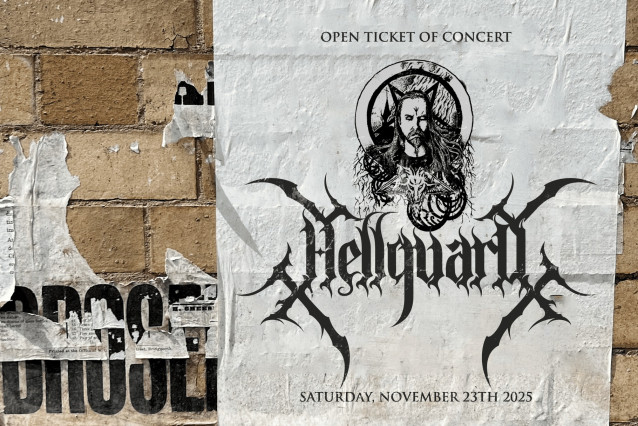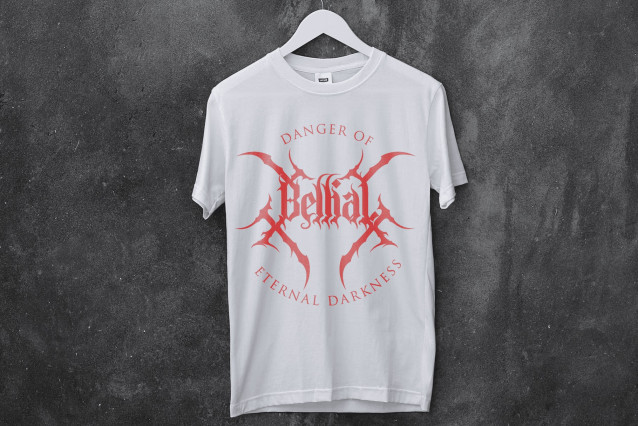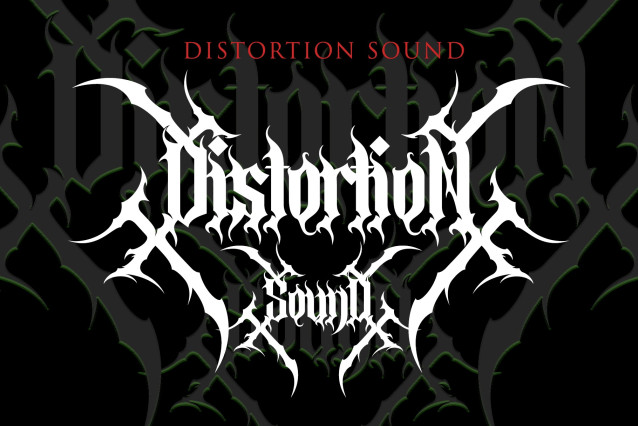
Rendering Blackletter Font is a savage and elegant blackletter typeface designed for the extreme. Drawing from the raw intensity of black metal, death metal, metalcore, and other heavy music subcultures, this font delivers razor-sharp detail with commanding presence.
Built for artists, bands, and designers who embrace darkness and distortion, Rendering brings unrelenting power to your logos, album covers, concert posters, and merch drops.